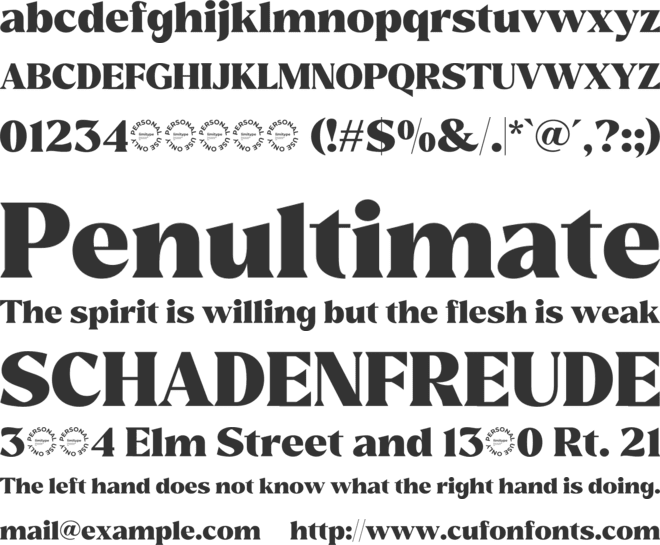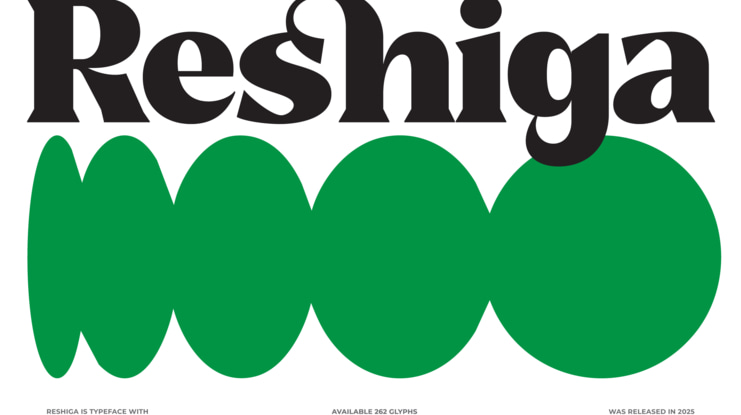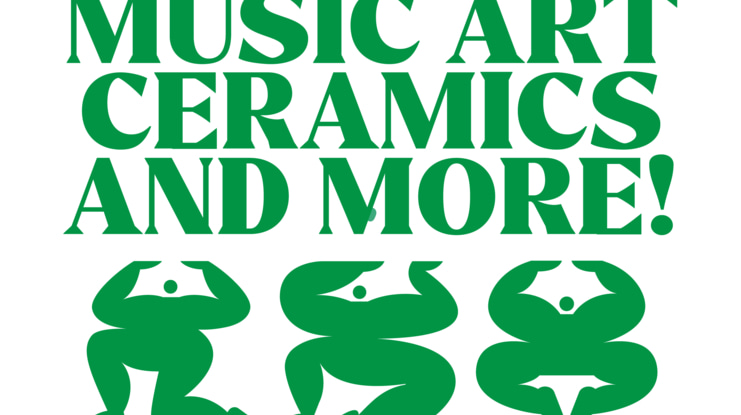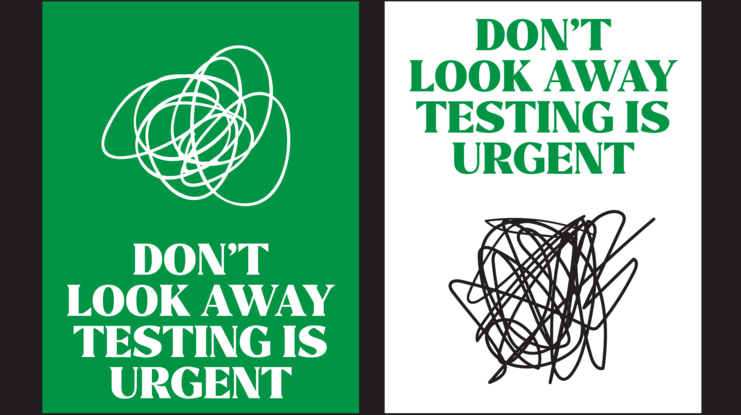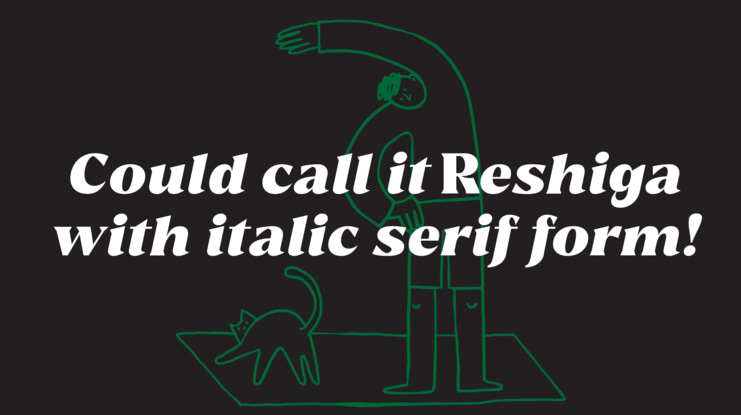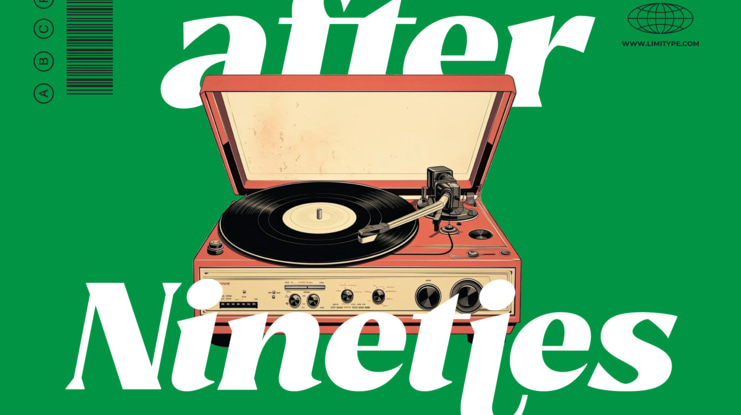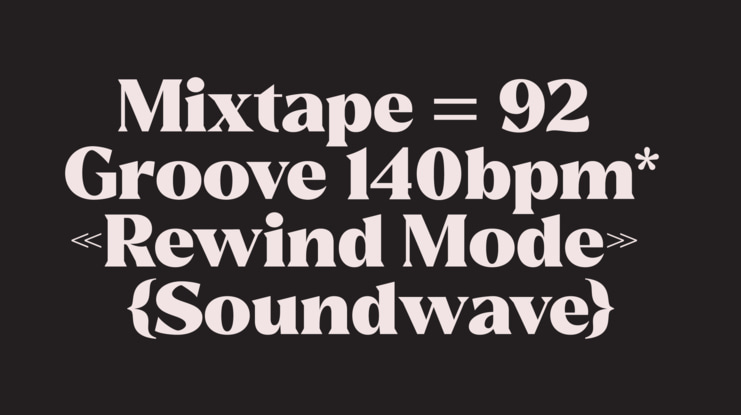
Reshiga Serif Font
Reshiga is a versatile display serif font that works beautifully in both modern and classic styles. With its bold and striking appearance, it's perfect for designs that require strong visual impact, such as magazine headlines, posters, banners, and more. Reshiga also comes with a selection of stylish ligature variations to enhance your typography.